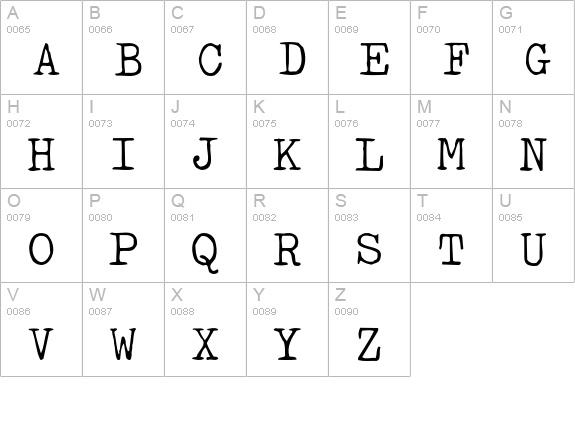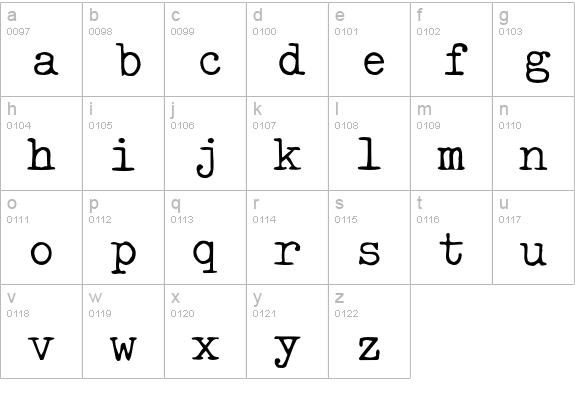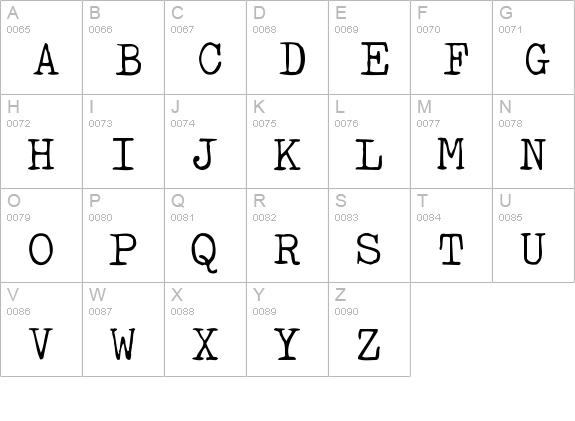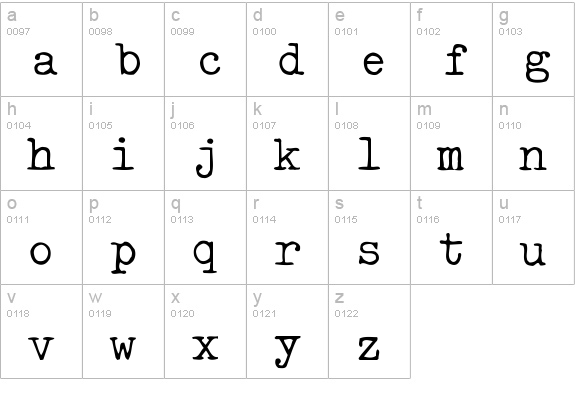
TypewriterType Font Details
Introducing TypewriterType font, a timeless and classic typeface that brings back the nostalgic charm of vintage typewriters. With its distinctive and authentic appearance, this font is perfect for capturing the essence of a bygone era in your designs. TypewriterType font is meticulously crafted with attention to detail, ensuring that every character maintains the authentic look and feel of a real typewriter. From the uneven edges to the slightly faded ink, each letter transports you to a time when manual typewriters were the epitome of sophistication and elegance. This versatile font is ideal for a wide range of projects, including vintage-themed designs, book covers, posters, logos, and more. Its unique and distinctive style adds character and personality to any text, making your designs stand out from the crowd. The best part is, TypewriterType font is available for free! You can easily download it at FontsMarket.com, a trusted source for high-quality fonts. Whether you're a seasoned designer or just starting out, this font is a must-have in your collection. So why wait? Embrace the charm of the typewriter era and add a touch of nostalgia to your designs with TypewriterType font. Download it for free today at FontsMarket.com and let your creativity flow.